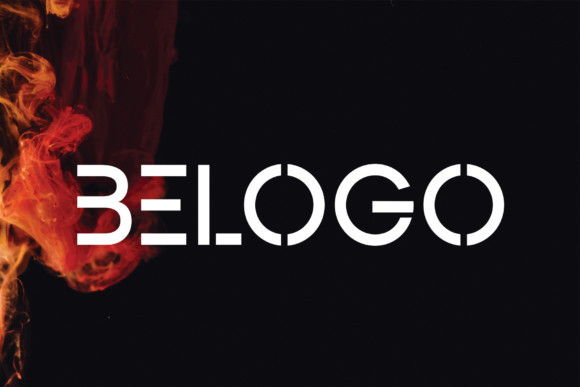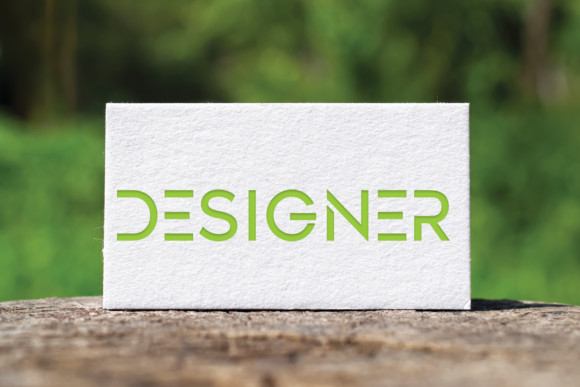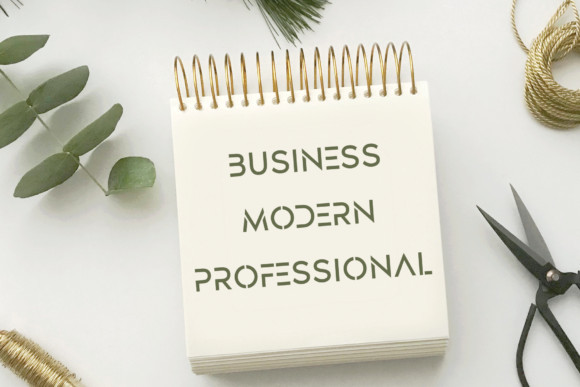
Belogo Font
Belogo is an authentic display font. Masterfully designed to become a true favorite, this font has the potential to bring each of your creative ideas to the highest level!